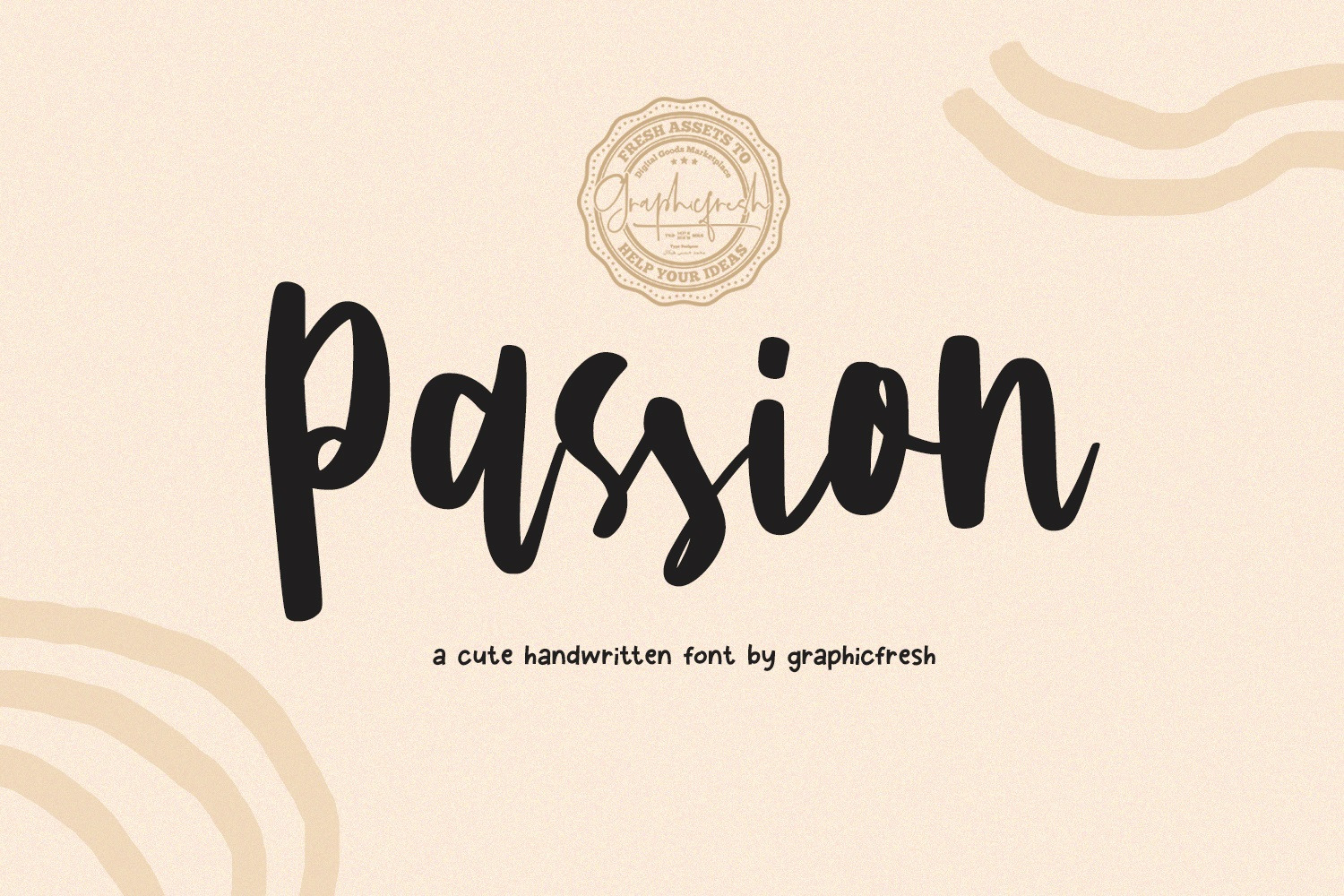
Passion - A Cute Handwritting Font
Introducing Passion - A Cute Handwritting Font. It comes with an elegant, cute and feminine style which is perfect to make any design stand out! This font is perfect for branding, wedding invites, magazines, mugs, business cards, quotes, posters, and more.
Passion Type Features:
- Suitable for Headlines, Logotypes, Signs, Posters, Letterhead, T-Shirt and many more.